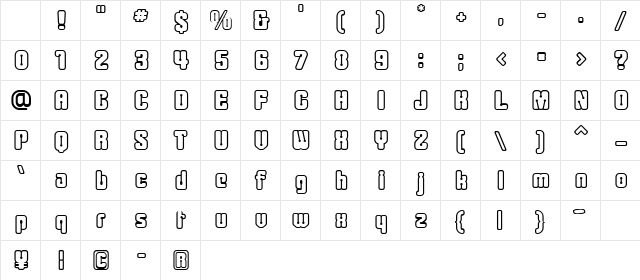
Complete Clipe Open glyph index. Displaying only characters natively supported by Clipe Open font.
Clipe is a composed and adaptable typeface that performs quietly and consistently across a wide range of design contexts.